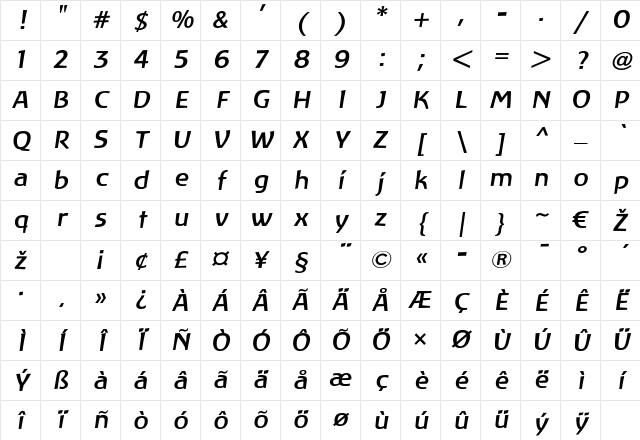
LTAtlantis Bold Italic
Designer: Lutz Baar
Design Context for LTAtlantis
LTAtlantis is a composed and adaptable typeface that performs quietly and consistently across a wide range of design contexts. The slanted form adds forward momentum and visual energy. Its bold stroke weight gives it real presence on the page.